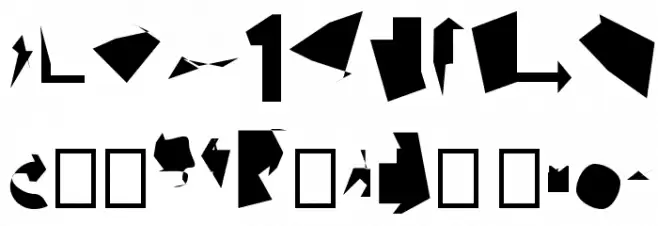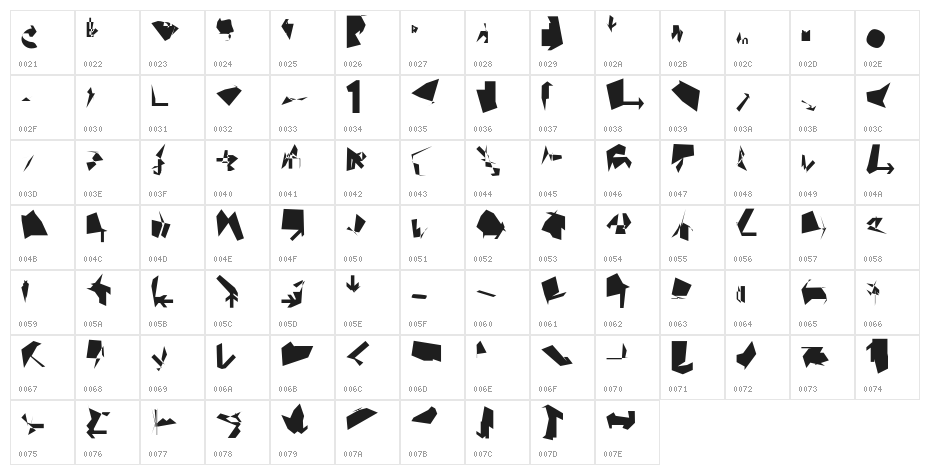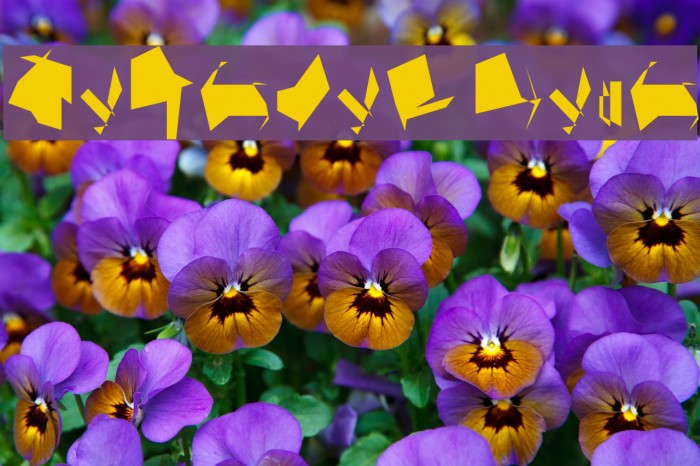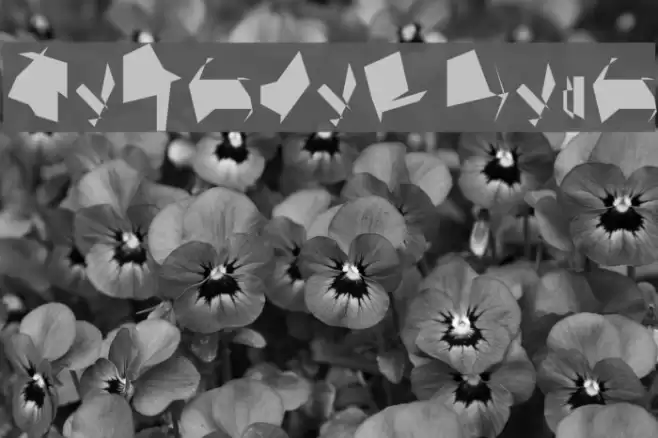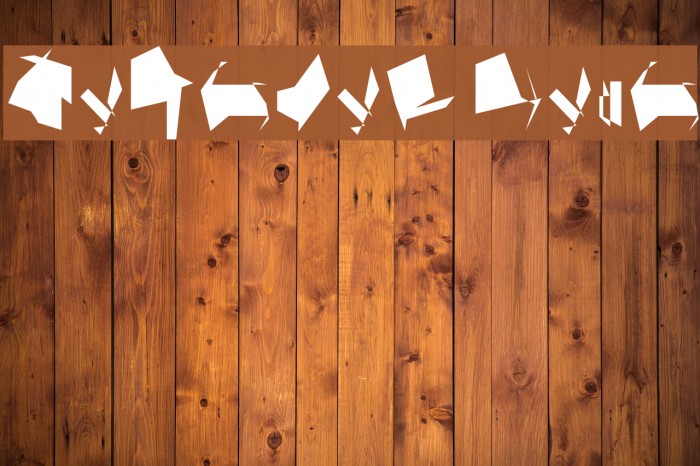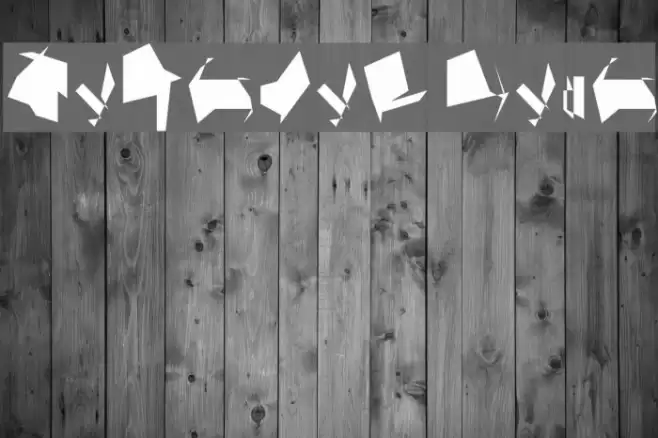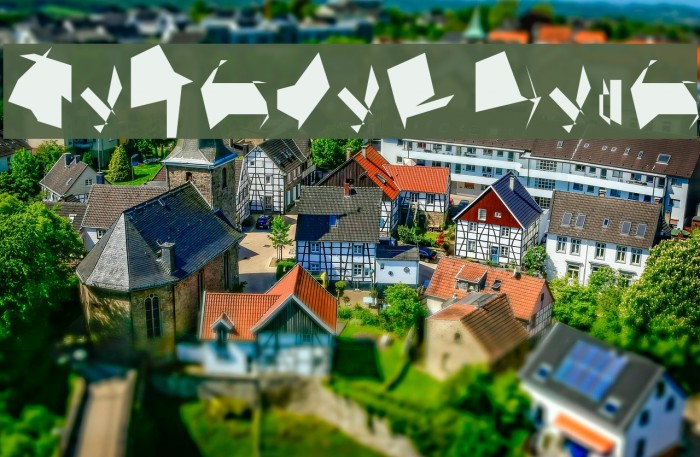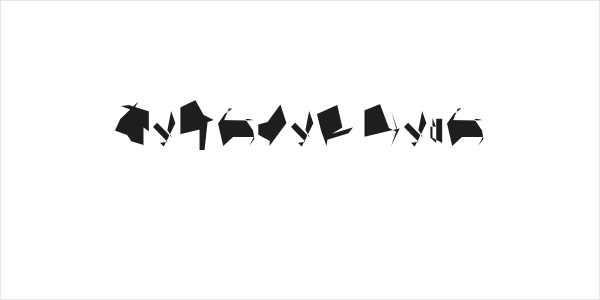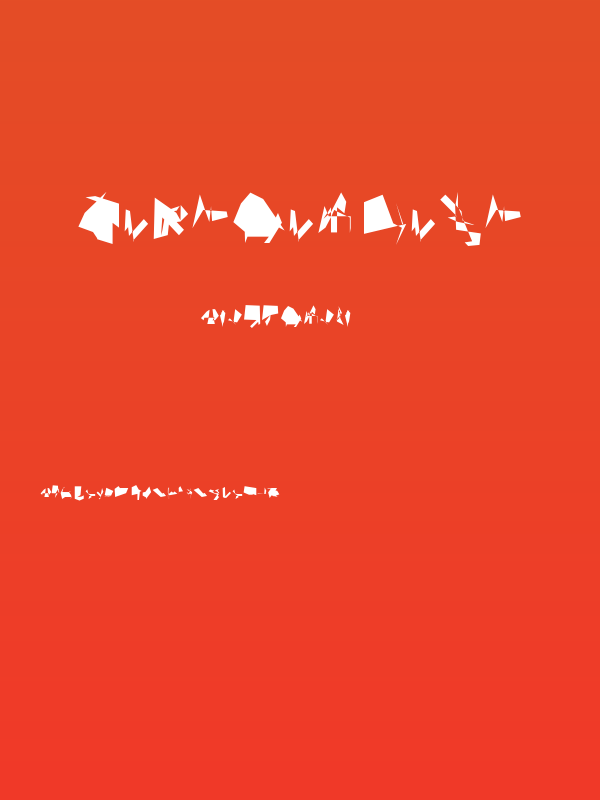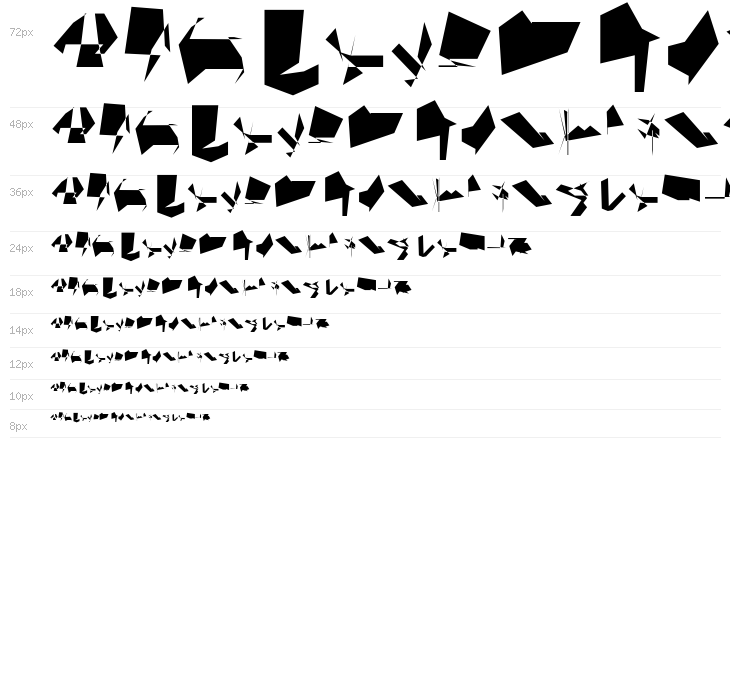
Siberia Wide Font
Siberia Wide Description
This font features a highly abstract and fragmented design, characterized by sharp angles and irregular shapes. Each character appears as a series of jagged, geometric forms, creating a sense of chaos and movement. The letters are bold and striking, with a unique style that defies traditional readability. The overall appearance is reminiscent of shattered glass or torn paper, making it a standout choice for artistic and avant-garde projects. The font's unconventional design challenges the viewer to decipher its forms, offering a visually engaging experience.
| Overall Style | Modern, Abstract |
| Use Case | Logos, Artistic displays, Experimental design |
| Proposed Projects | Ideal for experimental art projects, edgy branding, album covers, or any design seeking a disruptive and avant-garde aesthetic. |